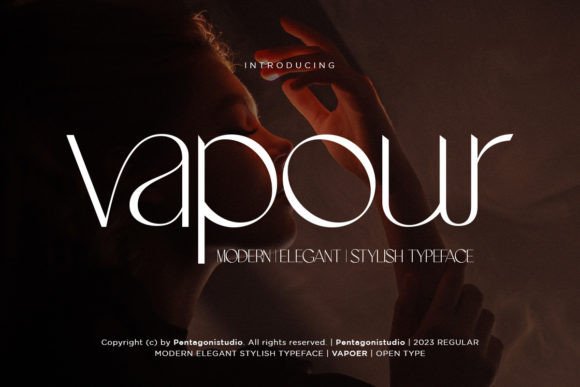
Looking for the perfect font to bring a touch of elegance and modernity to your designs? Look no further than Vapour Font, the ultimate choice for vintage logo enthusiasts. Created by the talented team at Pentagonistudio, this sans serif font is packed with stylistic alternates and ligatures that will take your designs to the next level.
Vapour Font is not your ordinary font - it's a game-changer. With its sleek and sophisticated design, it is guaranteed to captivate your audience and leave a lasting impression. Whether you're designing magazine covers, packaging, perfumes, or cosmetics, Vapour Font is the secret ingredient that will elevate your creations from ordinary to extraordinary.
Imagine the power of a font that effortlessly combines elegance and modernity. Vapour Font does just that. Its clean lines and unique letterforms will give your designs a timeless appeal. With its versatility, this font is perfect for both bold headlines and delicate details, allowing you to create a harmonious balance in your designs.
But Vapour Font is not just about aesthetics. It is designed to evoke emotions and create connections with your audience. Its captivating charm will draw your viewers in, leaving them mesmerized by the beauty of your designs. With Vapour Font, you have the power to tell a story through your typography, making your message even more impactful.
Don't settle for ordinary fonts that fail to make an impression. Choose Vapour Font and let your designs speak for themselves. Feel the confidence that comes with knowing you have the best font for vintage logos at your fingertips. Stand out from the crowd and make a statement with your creations.